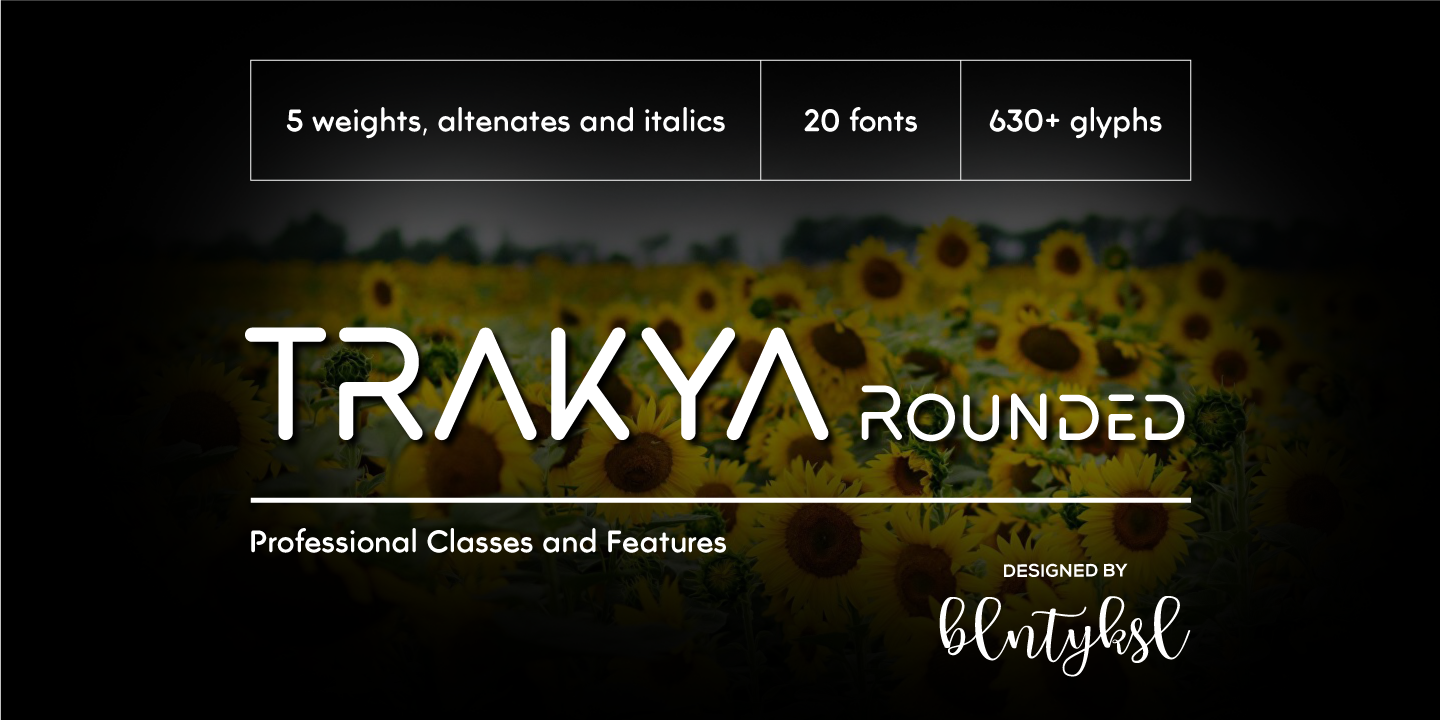
The Trakya Rounded Font is ideal for friendly tech startups, approachable healthcare branding, children's educational materials, modern lifestyle blogs, user-friendly app interfaces, contemporary service businesses, welcoming corporate communications, progressive non-profit organizations, and accessible design projects that require warm, inviting typography with contemporary appeal.
What makes the Trakya Rounded Font so exciting is its perfect harmony between professional sophistication and approachable warmth that creates an ideal balance for modern brands seeking to communicate both competence and accessibility. This remarkable typeface embodies the evolution of contemporary design thinking, featuring softened geometric letterforms with carefully rounded corners and refined proportions that eliminate harshness while maintaining structural integrity and professional credibility. The font's friendly character and contemporary functionality make it the perfect choice for brands and projects that need to establish trust, communicate expertise, and create welcoming experiences that resonate with diverse audiences seeking both reliability and human connection.
The Trakya Rounded Font family typically includes thin, light, regular, medium, bold, and black weights, along with corresponding italic versions and extended character sets that provide designers with comprehensive tools for creating cohesive friendly branding systems and accessible visual communications across various contemporary applications.
Progressive businesses and community-focused organizations consistently choose Trakya Rounded Font Free Download for its exceptional ability to convey professional competence while maintaining approachable personality. This versatile typeface represents the perfect synthesis of technical excellence and human-centered design, offering professionals a powerful tool for building meaningful brand relationships that resonate with audiences who value both expertise and genuine care. Whether you're developing branding for healthcare services, creating educational technology platforms, designing community outreach materials, or crafting inclusive marketing campaigns, this font delivers the trustworthiness and accessibility that modern communications require.
The thoughtfully crafted letterforms of the Trakya Rounded Font showcase optimal rounded proportions and contemporary styling details that ensure exceptional readability while creating a sense of warmth and approachability across all applications. The font's friendly construction and professional polish create immediate associations with trustworthiness, competence, and genuine concern for user experience and community wellbeing.
UX designers and community brand managers appreciate the font's comprehensive accessibility features and inclusive design principles, which enable the creation of typography that welcomes diverse audiences while maintaining the professional standards essential for building credibility in competitive markets.
For organizations seeking to establish genuine connections with their communities while demonstrating professional excellence through their visual identity, the Trakya Rounded Font provides an exceptional typography solution. Its balanced foundation and proven inclusive appeal make it particularly suitable for healthcare organizations, educational institutions, technology companies, and service providers that prioritize both professional competence and human connection.
The font's optimization for both traditional print communications and modern digital interfaces ensures consistent friendly impact across all contemporary communication channels, while its timeless approachable aesthetic provides enduring value for community-focused brand systems requiring typography that authentically represents the balance between professional excellence and genuine human care in today's relationship-driven marketplace.